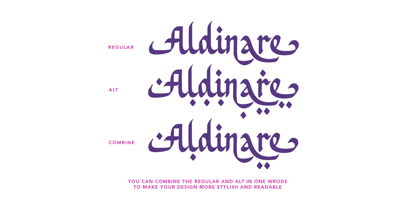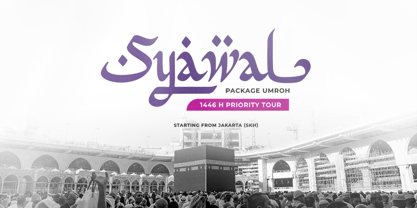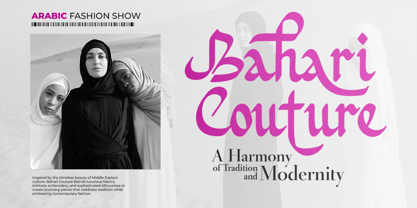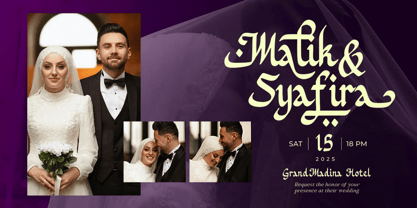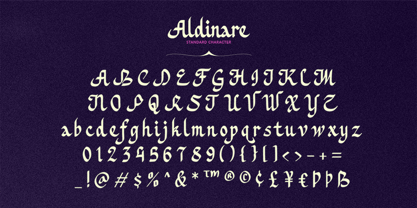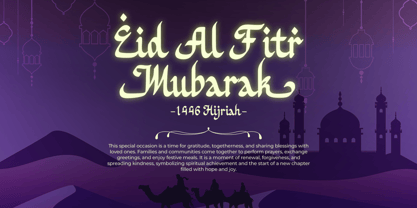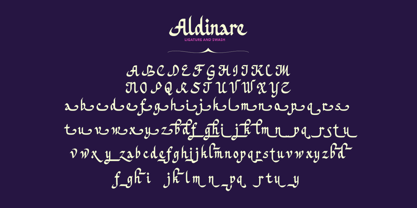
Aldinare
by Bale Type
The Aldinare Font Family was designed by Sarid Ezra, Dzikrul Aulia and published by Bale Type. Aldinare contains 2 styles and family package options.
Aldinare is a bold Arabic fauxlang font family that have two style, Regular and Alt. With stylish alternates, you can make your design more stunning! You can combine the two styles in one words to make your design more stylish and readable. This font, which was genuinely influenced by the Arabic alphabet, will give your project a more Arabian appearance while keeping it readable for everyone. Aldinare can be used for any project, including branding, logo creation, wedding invitations, and special occasions like Ramadan and Islamic holidays that related to Islamic Content. This font also include number, symbol and support multilingual.
Designers: Sarid Ezra, Dzikrul Aulia
Publisher: Bale Type
Foundry: Bale Type
Design Owner: Bale Type